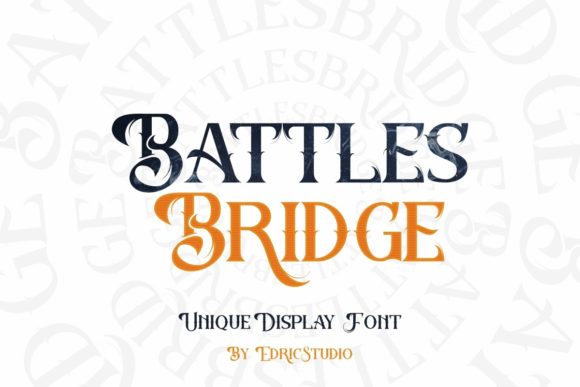
Battlesbridge Font: The Ultimate Choice for Spooky and Whimsical Designs
Are you looking for a font that can add a touch of horror and whimsy to your designs? Look no further than the Battlesbridge Font! This stylish and curly slab serif font is perfect for projects that need unique typography, especially for Halloween items and other spooky genres. In this article, we’ll dive into the features and benefits of the Battlesbridge Font, and explore how it can elevate your designs to the next level.
What is Battlesbridge Font?
Battlesbridge Font is a slab serif font that boasts a bold, curly flair with a horror style that is sure to grab attention. Its unique design makes it perfect for use in a variety of projects, from Halloween-themed crafts and decorations to spooky movie posters and haunted house invitations. The font’s curly and bold style gives it a distinctive look that sets it apart from other fonts, making it a great choice for designers and crafters looking to add a touch of personality to their work.
Key Features of Battlesbridge Font
• Unique and Whimsical Design: The Battlesbridge Font has a one-of-a-kind design that is both stylish and whimsical, making it perfect for projects that need a touch of personality.
• Horror Style: The font’s horror style is sure to evoke a sense of spookiness and eeriness, making it perfect for Halloween-themed projects and other spooky genres.
• Bold and Curly Flair: The font’s bold and curly flair adds a touch of elegance and sophistication to any design, making it perfect for use in a variety of projects.
• Slab Serif Design: The font’s slab serif design gives it a distinctive look that sets it apart from other fonts, making it a great choice for designers and crafters looking to add a touch of personality to their work.
Benefits of Using Battlesbridge Font
So why choose the Battlesbridge Font for your next project? Here are just a few benefits of using this unique and stylish font:
• Adds a Touch of Personality: The Battlesbridge Font adds a touch of personality to any design, making it perfect for projects that need a unique and whimsical touch.
• Perfect for Spooky Genres: The font’s horror style and bold, curly flair make it perfect for use in spooky genres, such as Halloween-themed projects and haunted house invitations.
• Easy to Read: Despite its bold and curly design, the Battlesbridge Font is easy to read, making it perfect for use in a variety of projects, from titles and headings to body text.
• Versatile: The Battlesbridge Font is versatile and can be used in a variety of projects, from digital designs to print projects, such as posters, invitations, and crafts.
• Use it as a Title Font: The Battlesbridge Font is perfect for use as a title font, adding a touch of personality and whimsy to any design.
• Pair it with Other Fonts: The Battlesbridge Font can be paired with other fonts to create a unique and eye-catching design.
• Experiment with Different Sizes: The Battlesbridge Font can be used in a variety of sizes, from large titles to smaller body text.
In conclusion, the Battlesbridge Font is a stylish and whimsical slab serif font that is perfect for projects that need unique typography. Its horror style and bold, curly flair make it perfect for use in spooky genres, such as Halloween-themed projects and haunted house invitations. With its easy-to-read design and versatile style, the Battlesbridge Font is a great choice for designers and crafters looking to add a touch of personality to their work.